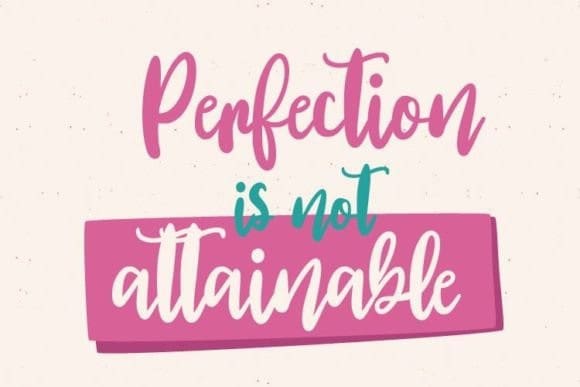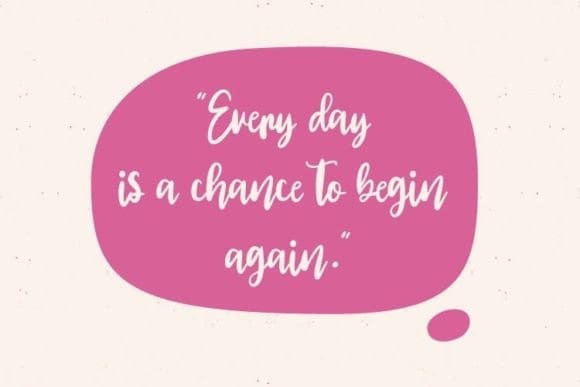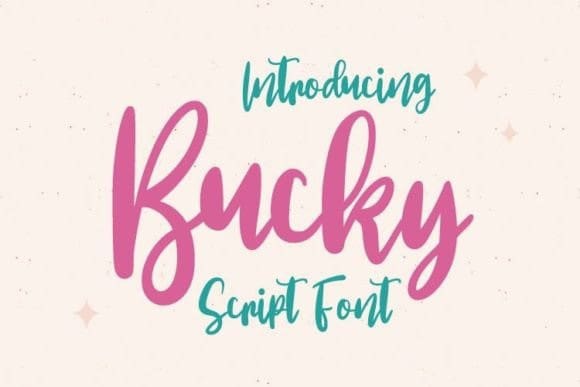
Bucky Script Font
Bucky Script Font is a beautiful script font that features fun and quirky characters that look good in any design. Add this font to your most creative ideas, and watch how it stands out!